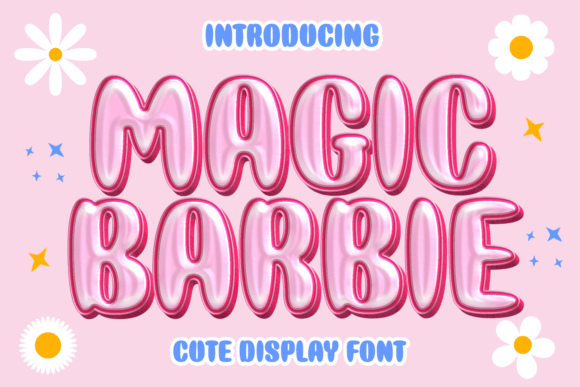
Magic Barbie Font
Experience the versatility of the Magic Barbie font that embodies charm and playfulness. Perfect for a range of designs such as kids themes, retro designs, or wedding invites, these fonts exude a sense of comic relief and fun. Express affection with this font, ideal for Valentine’s greetings, Mother’s Day messages, or simply adding personal touch to your branding.